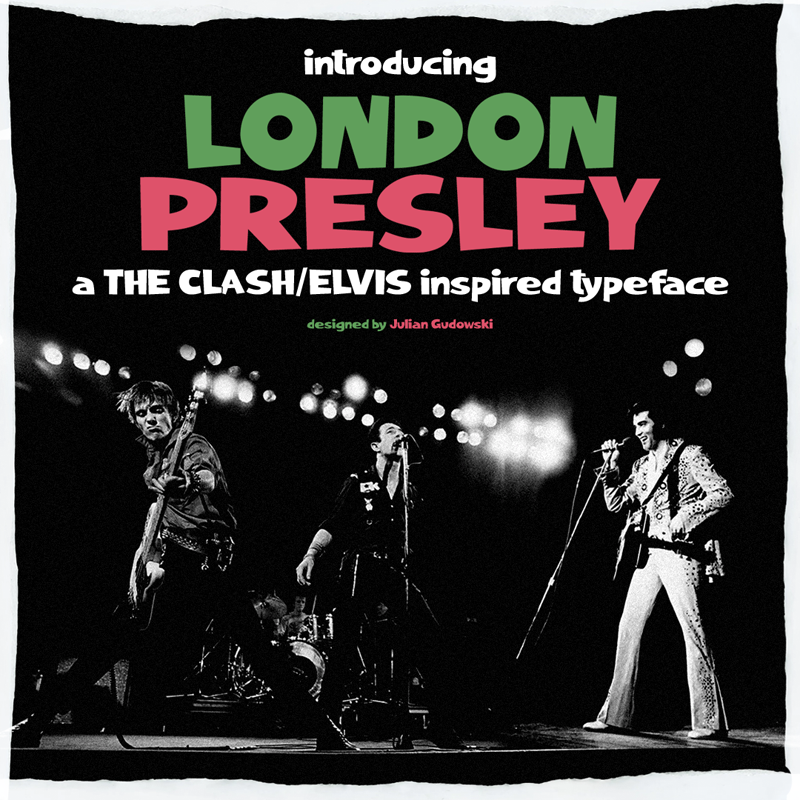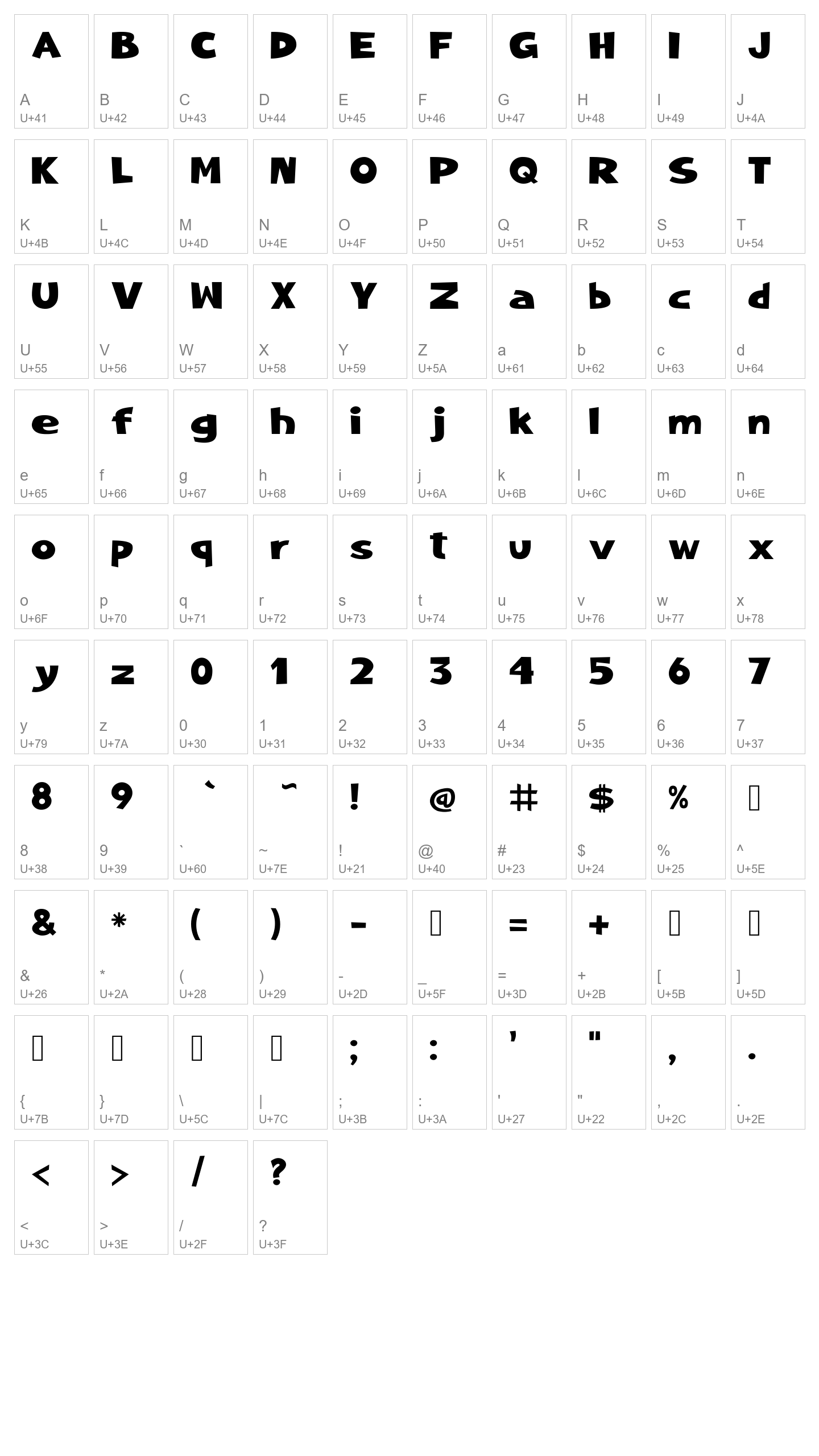
London Presley
LONDON PRESLEY is a free typeface inspired by The Clash's 'London Calling' iconic cover (1979), which is itself inspired by Elvis Presley first album (1956).